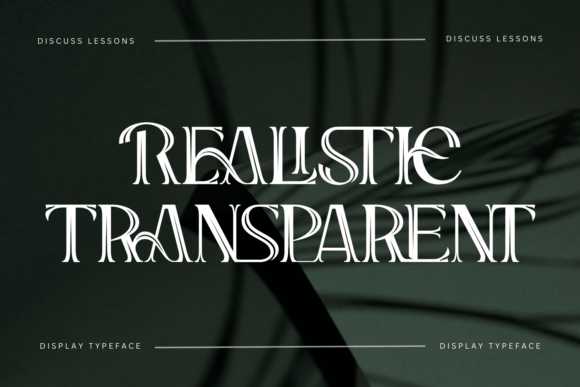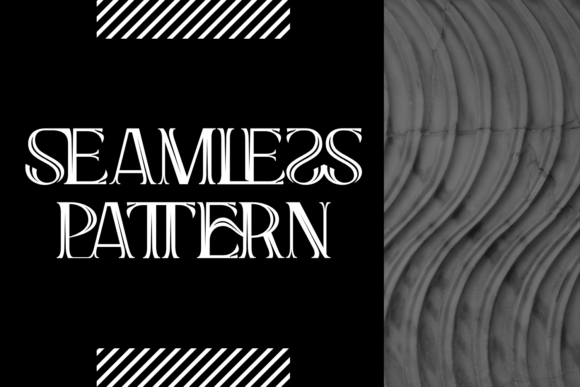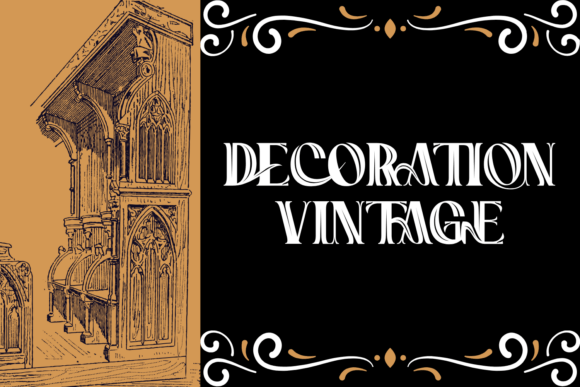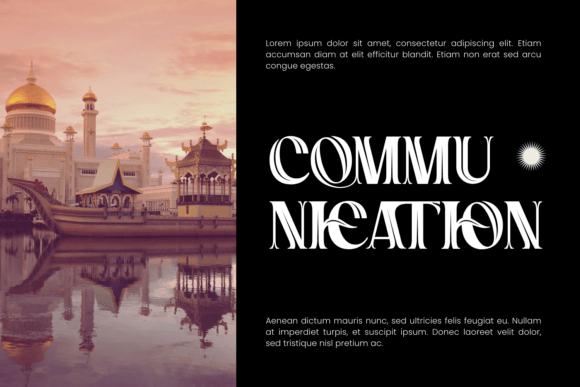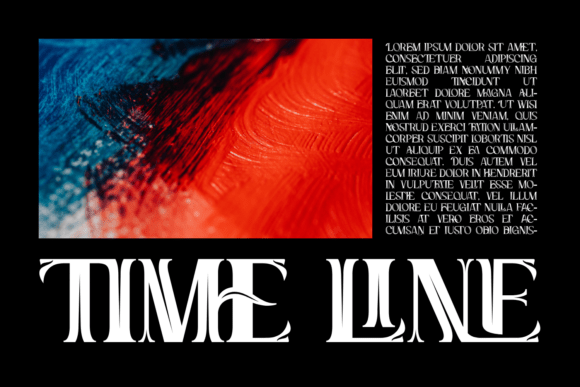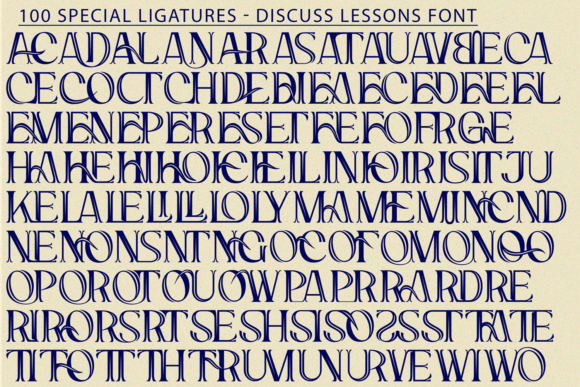
Introducing Discuss Lessons Font: Elevate Your Designs with Elegance and Sophistication
In the world of typography, fonts play a crucial role in conveying the tone and personality of a design. For designers and crafters seeking a modern yet classic look, Discuss Lessons Font is an exceptional choice. This elegant display font seamlessly blends traditional sophistication with contemporary style, making it perfect for a wide range of design projects.
A Modern Classic: Design Characteristics
Discuss Lessons Font boasts refined, tall letterforms that exude a sense of luxury and refinement. One of its standout features is the unique curved strokes and artistic flourishes that adorn each character. These delicate yet bold cuts, combined with subtle detailing, give the font a timeless charm and a sense of graceful movement. The result is a font that feels both modern and classic, capable of elevating any design with its presence.
The versatility of Discuss Lessons Font is one of its most compelling attributes. Its sophisticated design makes it an excellent choice for a variety of applications, including:
- Logo Designs: Create a lasting impression with a logo that embodies elegance and sophistication.
- Posters: Draw attention and convey your message with a font that stands out.
- Magazines: Add a touch of class to your editorial designs.
- Headlines: Make your headlines pop with a font that commands attention.
- And Many More: From business cards to billboards, Discuss Lessons Font can elevate any design project.
Built with OpenType Features
Discuss Lessons Font is built with OpenType features, making it not only aesthetically pleasing but also highly functional. It includes:
- 100 Ligatures: Enhance your text with unique ligatures that add a touch of personality.
- Alternates: Offers alternative characters to provide flexibility in your designs.
- Numbers, Punctuation: Complete functionality for comprehensive design needs.
- Language Support: Supports a wide range of languages, making it a versatile tool for global designers.
Why Choose Discuss Lessons Font?
For designers and crafters looking for a font that can add a level of sophistication and elegance to their work, Discuss Lessons Font is an exceptional choice. Its modern yet classic design ensures that your projects stand out in a crowded field. Here are a few reasons why it stands out:
- Unique Design: Offers a distinctive look that can set your designs apart.
- High Versatility: Suitable for a wide range of design projects.
- OpenType Features: Provides advanced typographic capabilities.
- Easy to Use: Incorporates seamlessly into your design workflow.
Discuss Lessons Font is a powerful tool for designers and crafters aiming to infuse their projects with a sense of elegance and sophistication. Its unique blend of modern style and classic charm, combined with its versatility and advanced typographic features, makes it an excellent addition to any designer’s toolkit. Whether you’re working on a logo, poster, magazine, or any other design project, Discuss Lessons Font is sure to elevate your work to new heights.